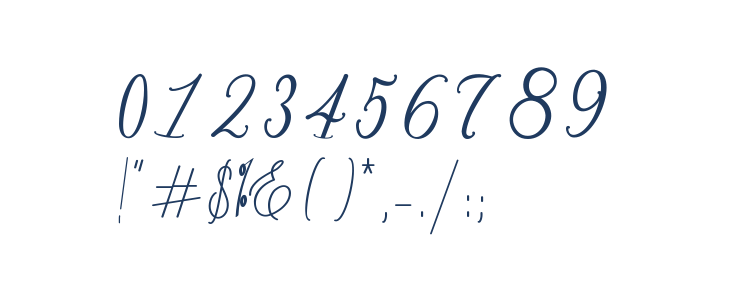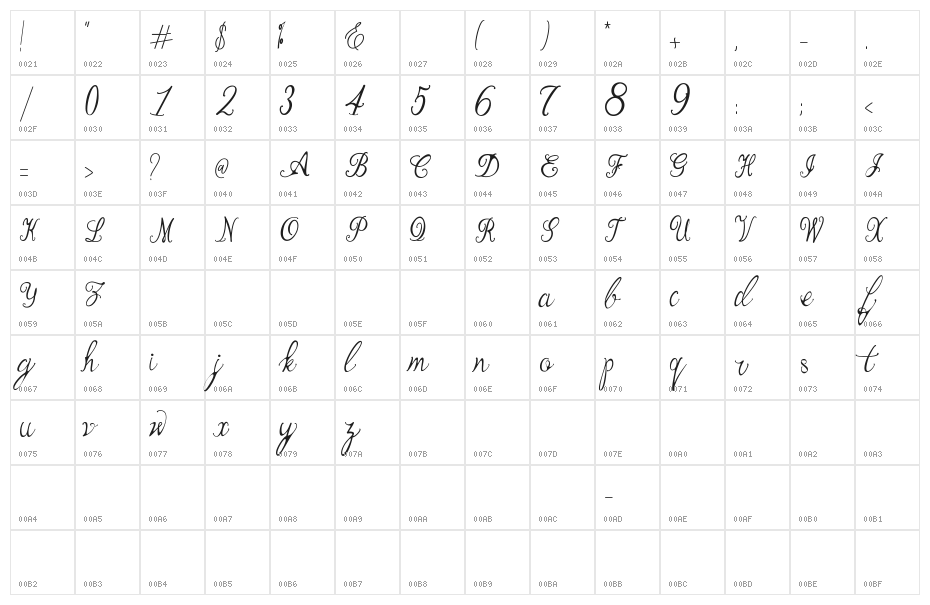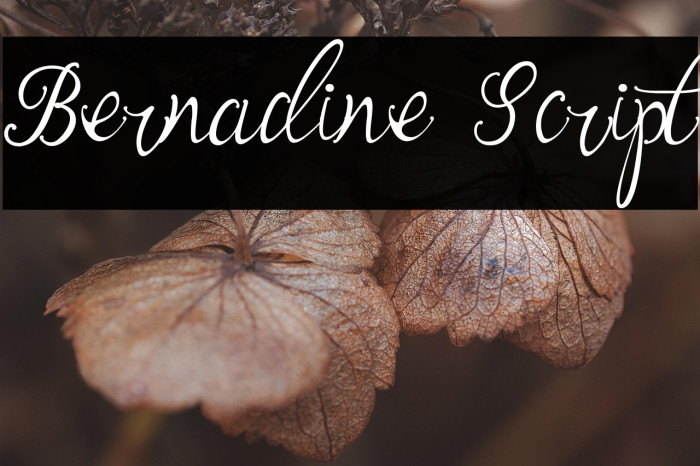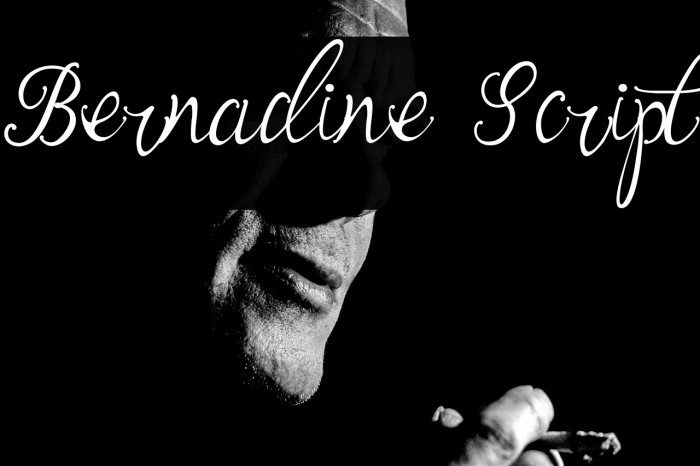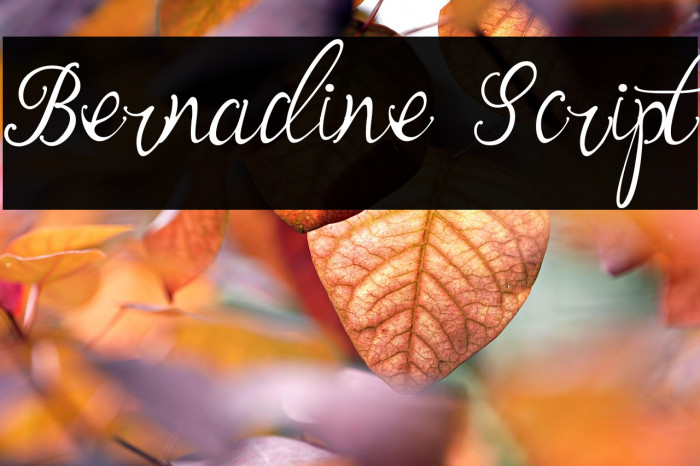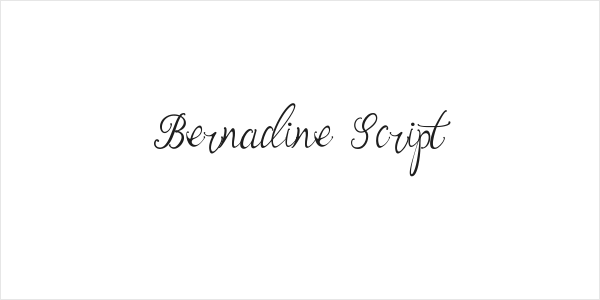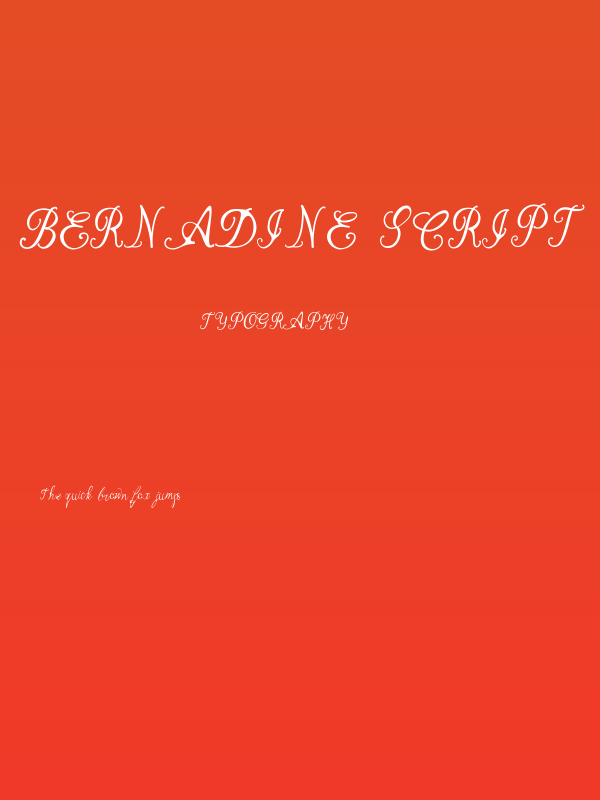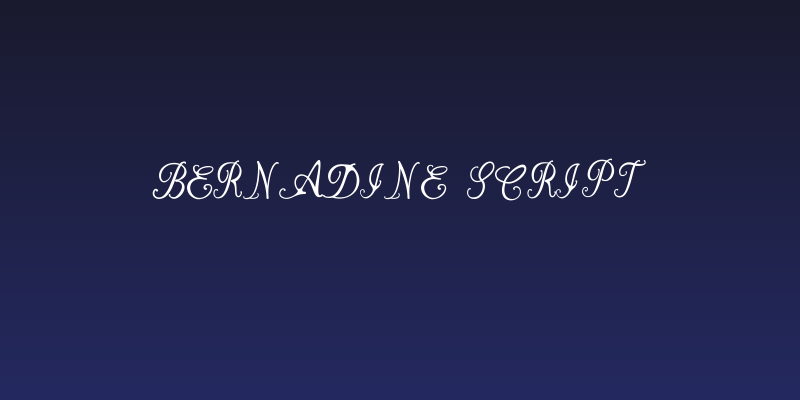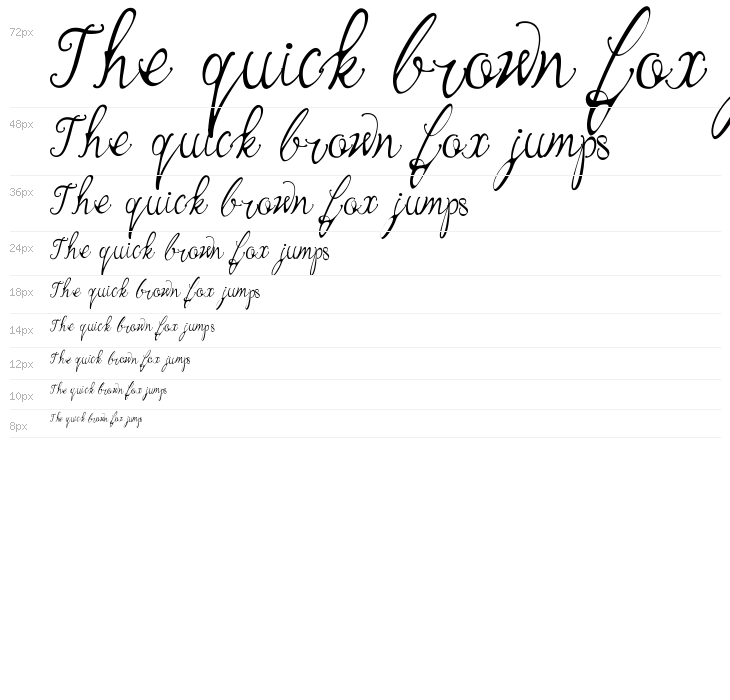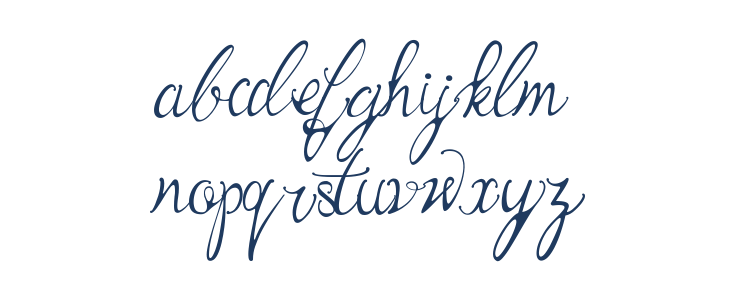
Bernadine Script Font
Bernadine Script Description
This elegant script font features a flowing, cursive style that exudes sophistication and grace. The uppercase letters are characterized by their intricate loops and swirls, creating a sense of movement and fluidity. The lowercase letters maintain a consistent style, with smooth connections between characters that enhance readability while preserving the font's decorative nature. The numerals and special characters are designed to complement the overall aesthetic, with similar curves and embellishments. This font is ideal for projects that require a touch of elegance and refinement.
| Overall Style | Elegant, Decorative |
| Use Case | Logos, Invitations, Decorative text |
| Proposed Projects | Ideal for wedding invitations, elegant branding, greeting cards, and upscale packaging. |